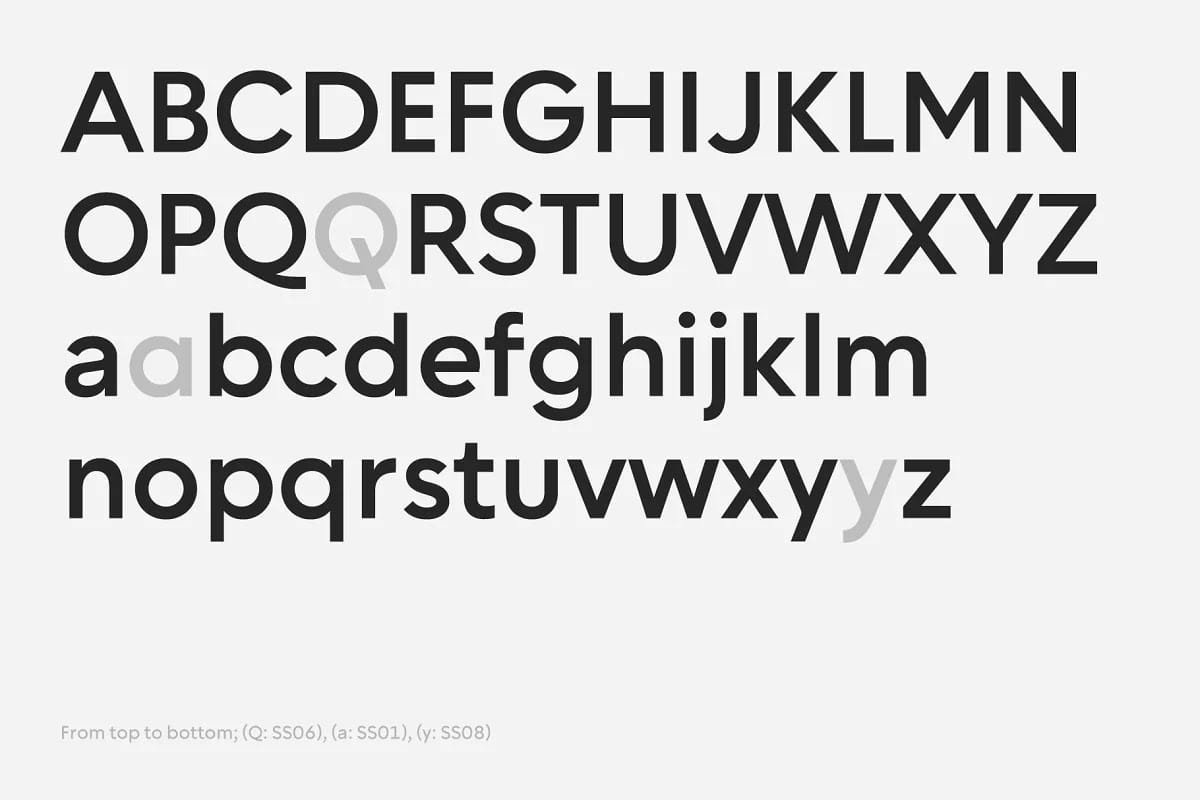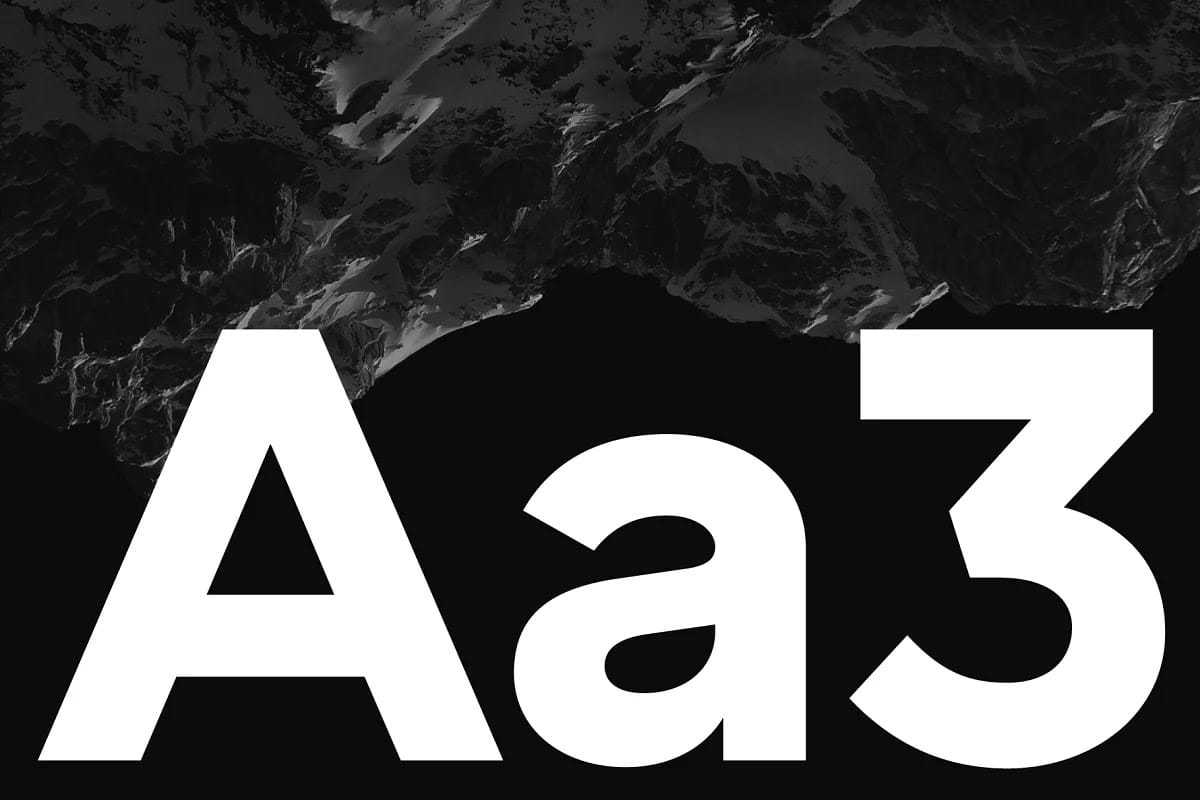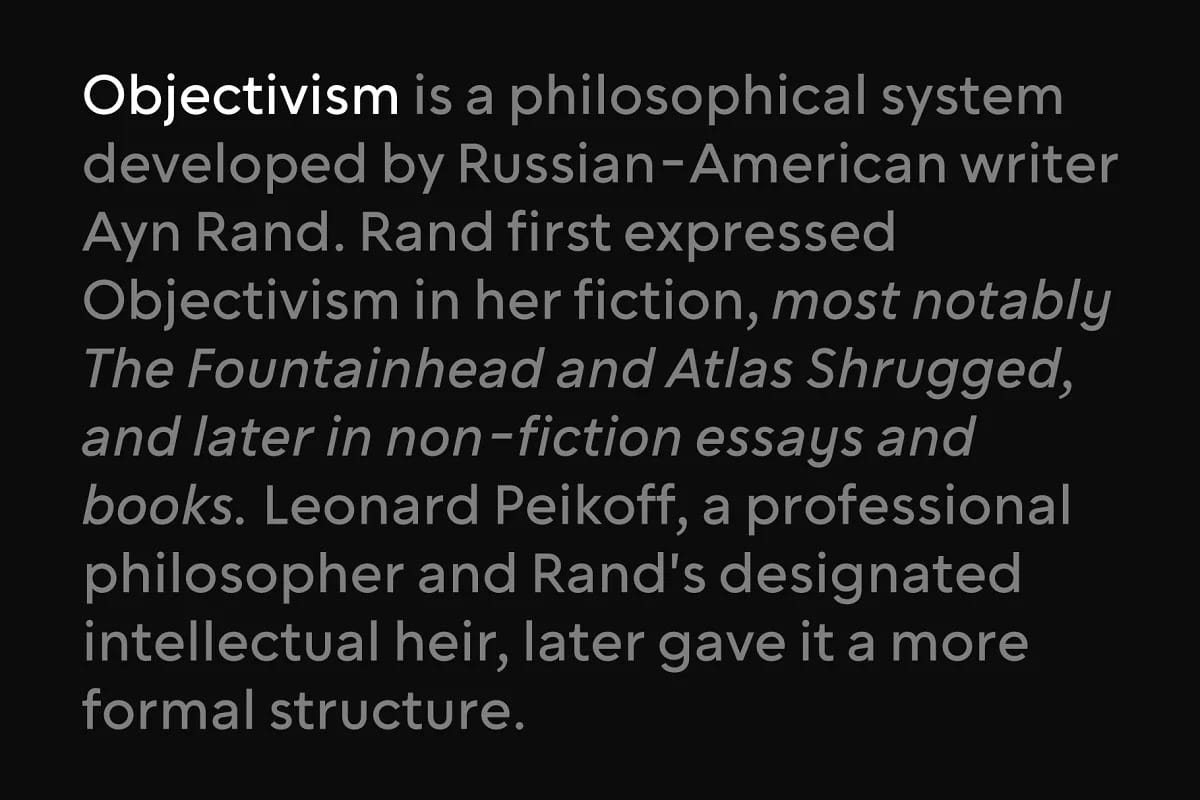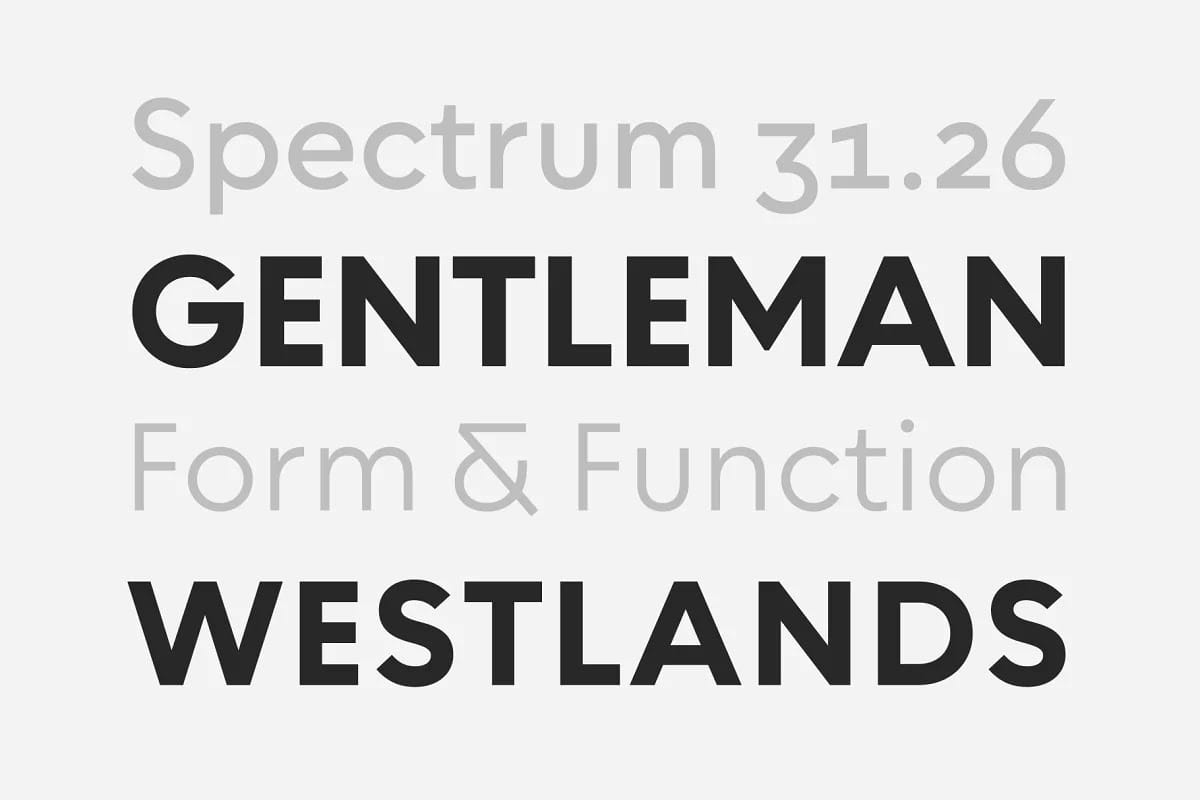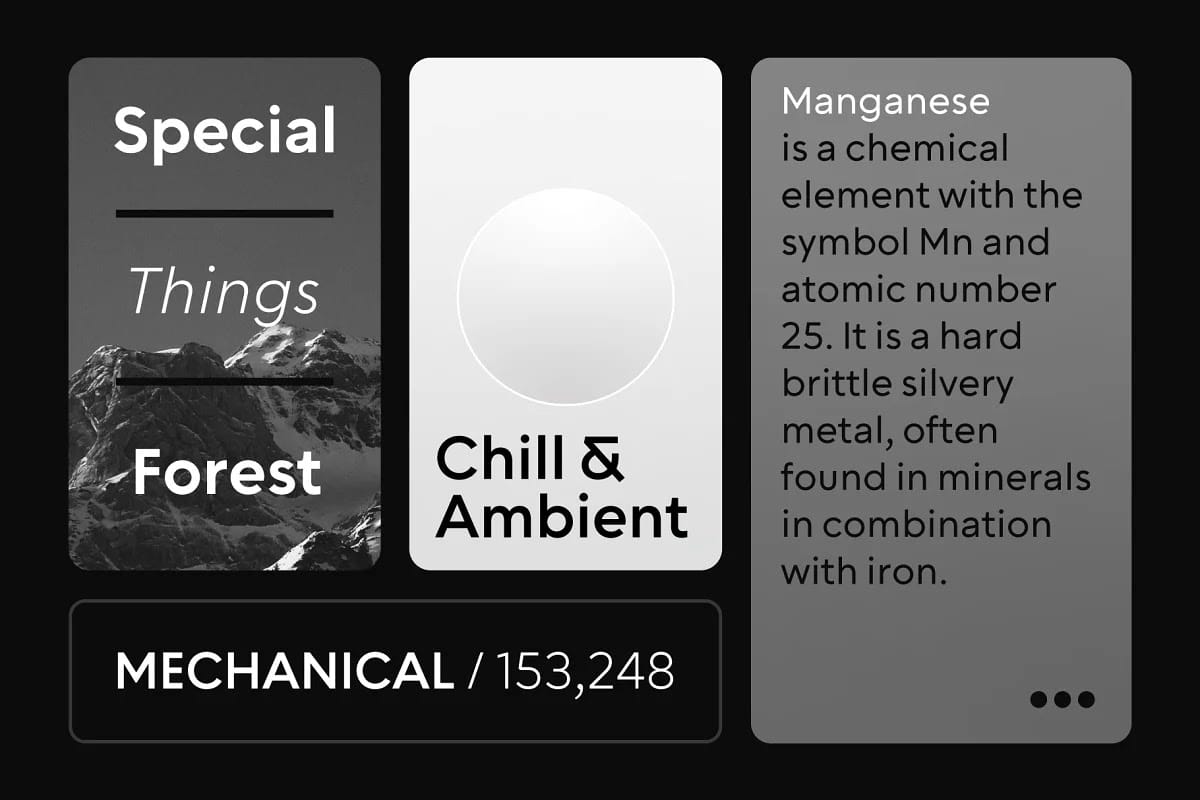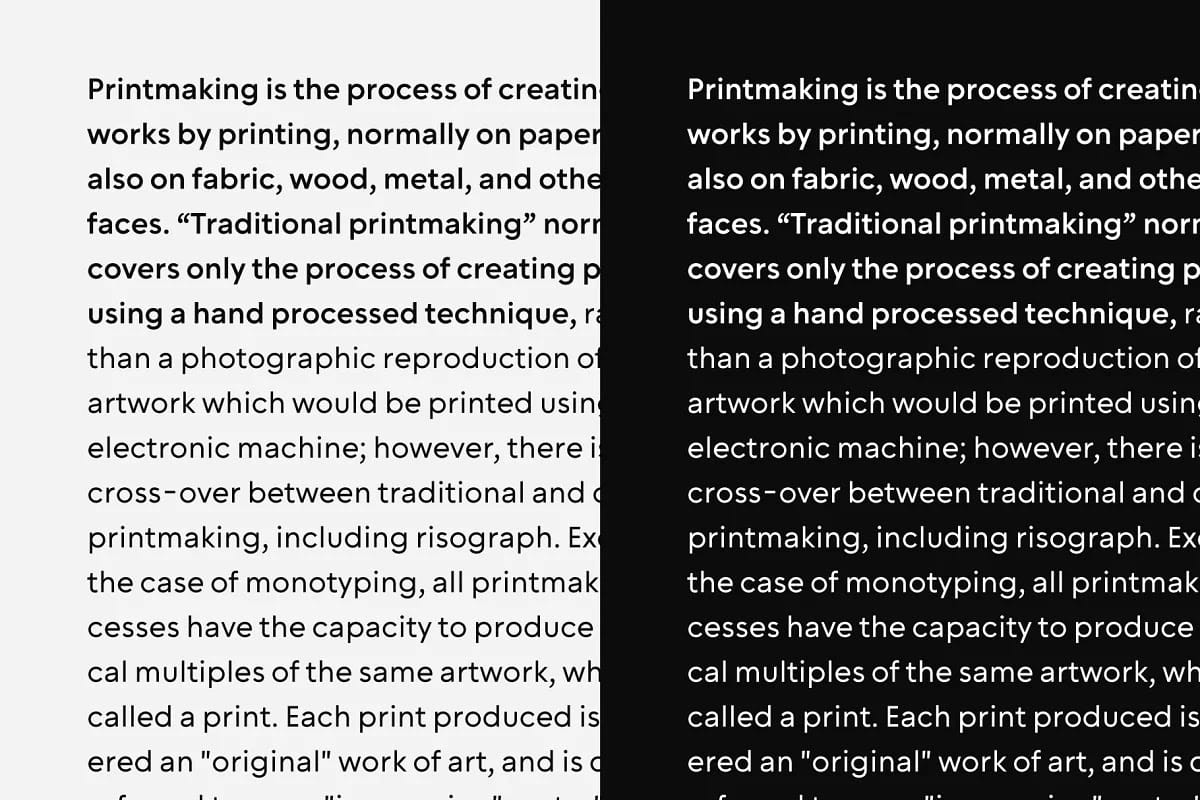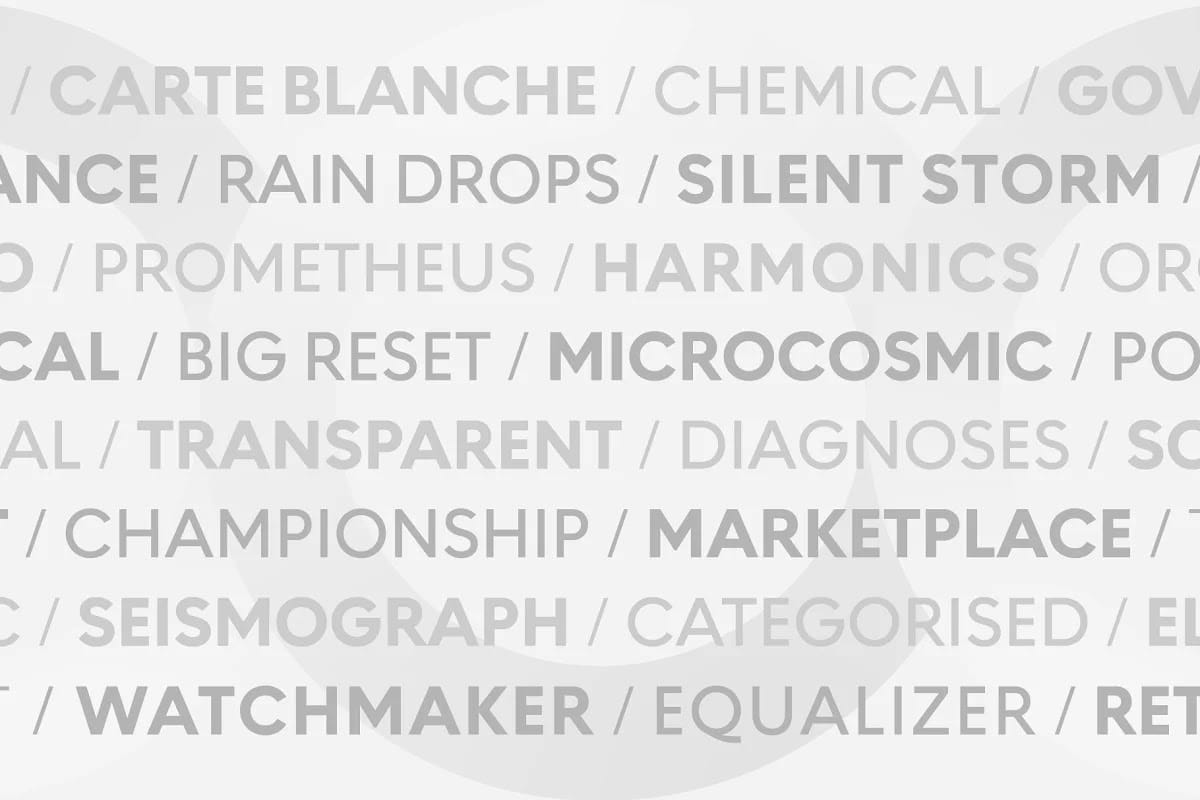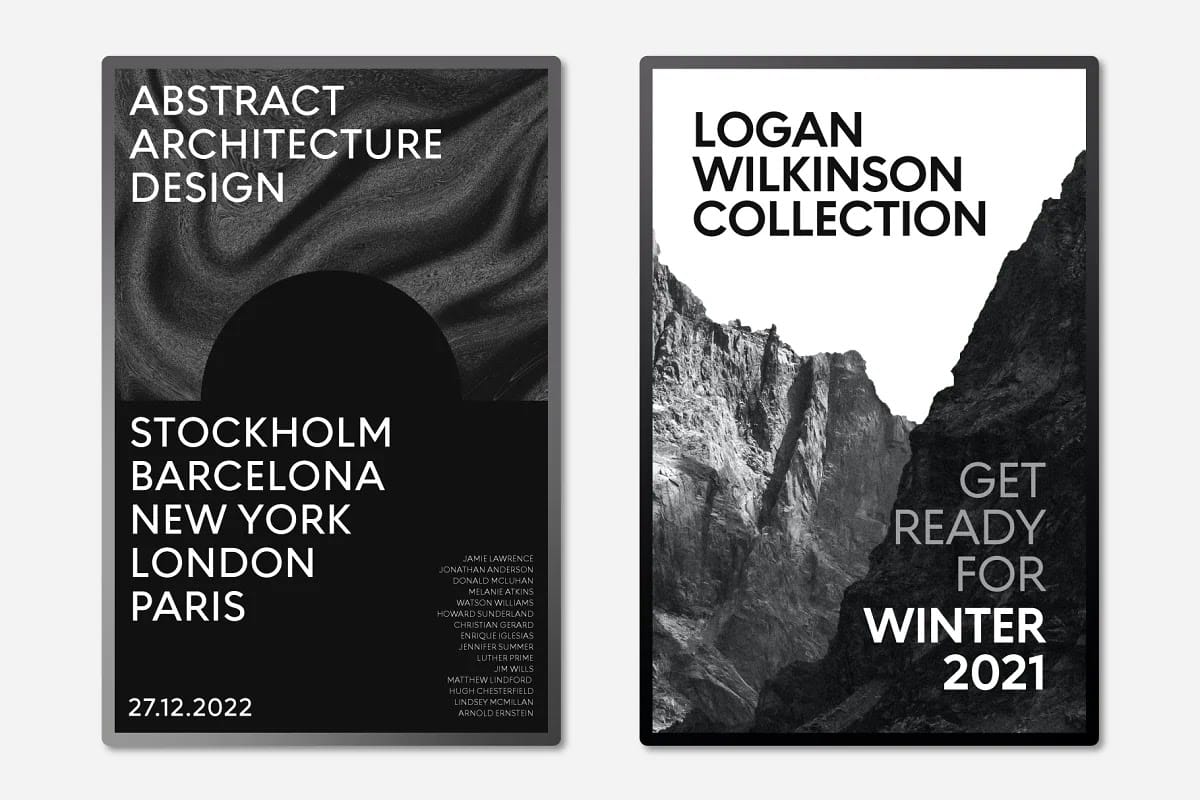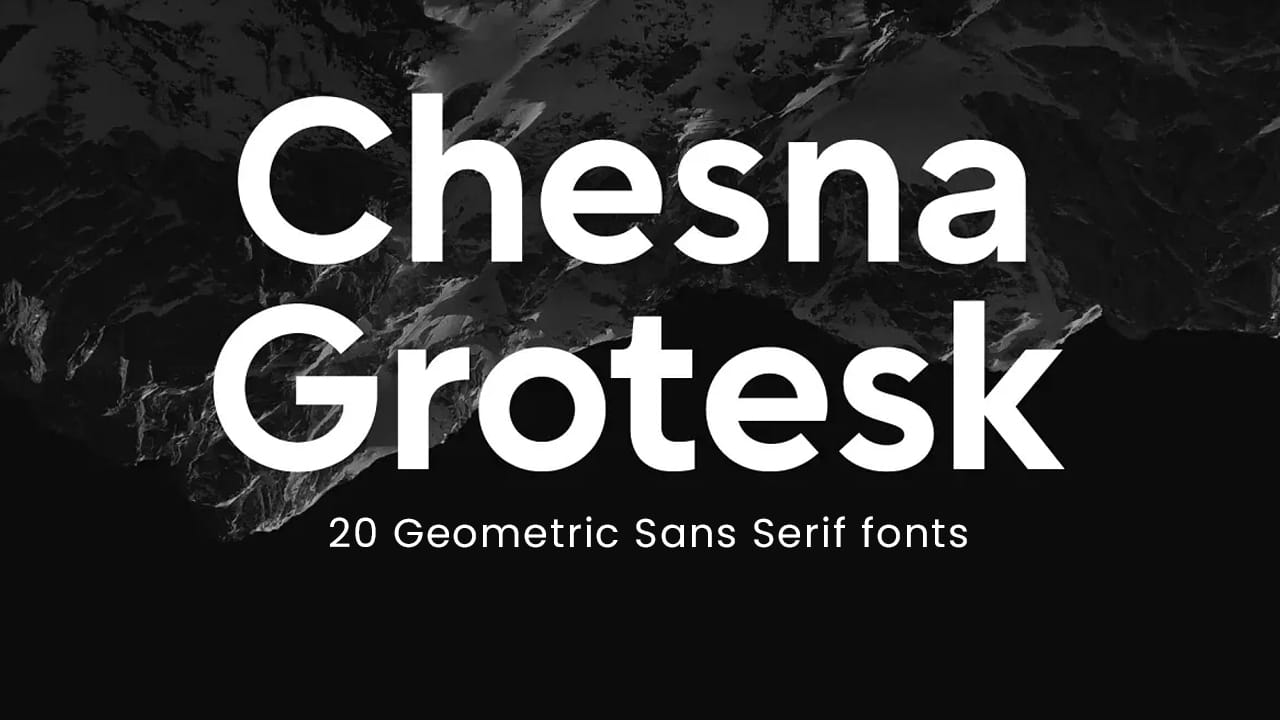
Chesna Grotesk Font Family is a font that brings a new approach to classic and modern design, inspired by typefaces like Avenir, Futura and Circular.Chesna Grotesk includes more than 20 high quality styles that bring a lot of new in design for you. The font is great for a variety of designs such as long text, large headings, or if you need a basic font style that looks good.Each weight includes extended language support, fractions, arrows, alternate characters and ligatures, please see the accompanying PDF file for more information.